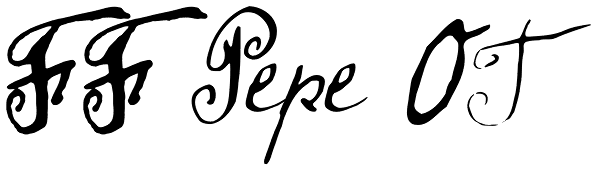
FF Pepe
Spanish type designer Pepe Gimeno created this script FontFont in 2002. The font is ideally suited for advertising and packaging, festive occasions, editorial and publishing as well as poster and billboards. FF Pepe provides advanced typographical...